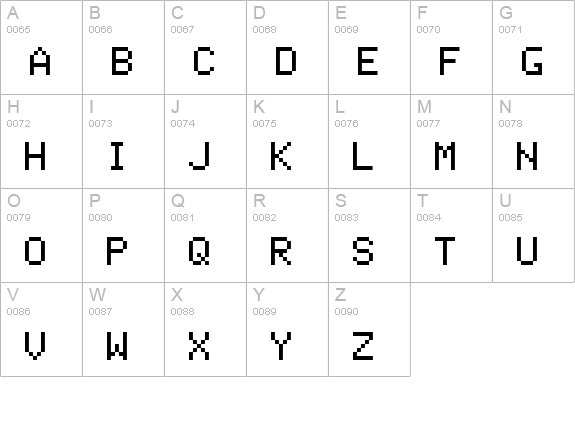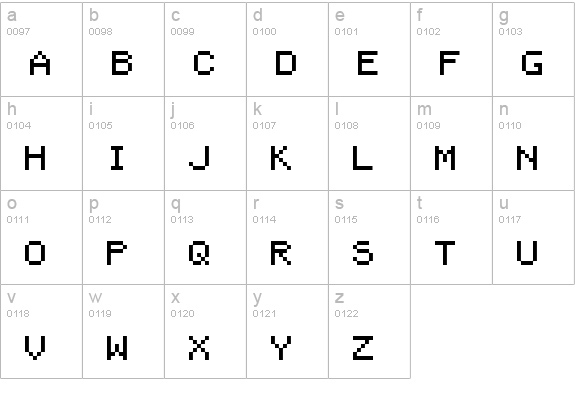
Pixel Coleco Font Details
Pixel Coleco is a playful and retro-inspired font that will transport you back to the golden age of classic video games. With its chunky, pixelated letters and nostalgic charm, this font is perfect for adding a touch of vintage gaming goodness to your designs. Whether you're creating a poster for a gaming convention, designing a logo for a gaming blog, or simply want to add a fun and quirky element to your typography, Pixel Coleco is the perfect choice. This free font is not only visually appealing but also incredibly versatile. Its bold and distinctive style makes it easy to read even at smaller sizes, making it suitable for both digital and print projects. Pixel Coleco is freely available to download at FontsMarket.com, making it accessible to anyone who wants to add a touch of retro gaming flair to their creations. So why wait? Download Pixel Coleco today and let your creativity run wild in the pixelated world of classic video games.